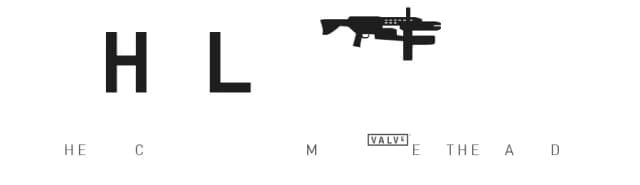
About HalfLife2 Font
HalfLife2 is a dingbat font designed by Valve Software with 101 glyphs in regular weight. This distinctive character set draws heavily from military and tactical imagery, offering specialized symbols and decorative elements rather than traditional letterforms. The comprehensive glyph collection makes it a strong choice for projects that require visual storytelling through symbolic iconography.
The font performs exceptionally well in gaming graphics, esports stream overlays, and custom decals for apparel and accessories. Designers working on military-themed badges, patches, and insignia designs find the character set equally effective for both digital and physical applications. Tactical sticker collections and gaming merchandise benefit from the themed symbols, which help establish cohesive visual identities across product lines. Event planners managing themed invitations, team jerseys, or gaming-related promotional campaigns discover that these characters provide distinct visual markers that can instantly communicate context and atmosphere.
HalfLife2 Font is a versatile dingbats font that works for both headings and body text. Pair it with a contrasting sans-serif or serif font to add visual interest and a clear distinction between titles and body copy.